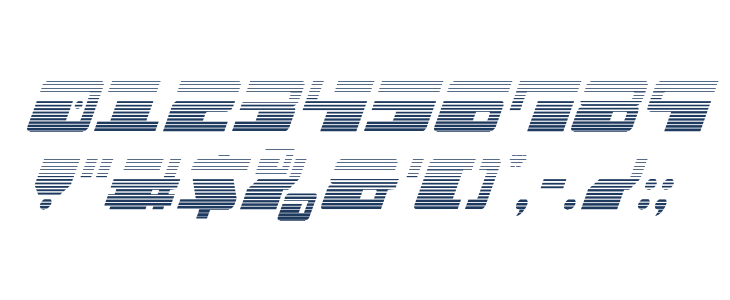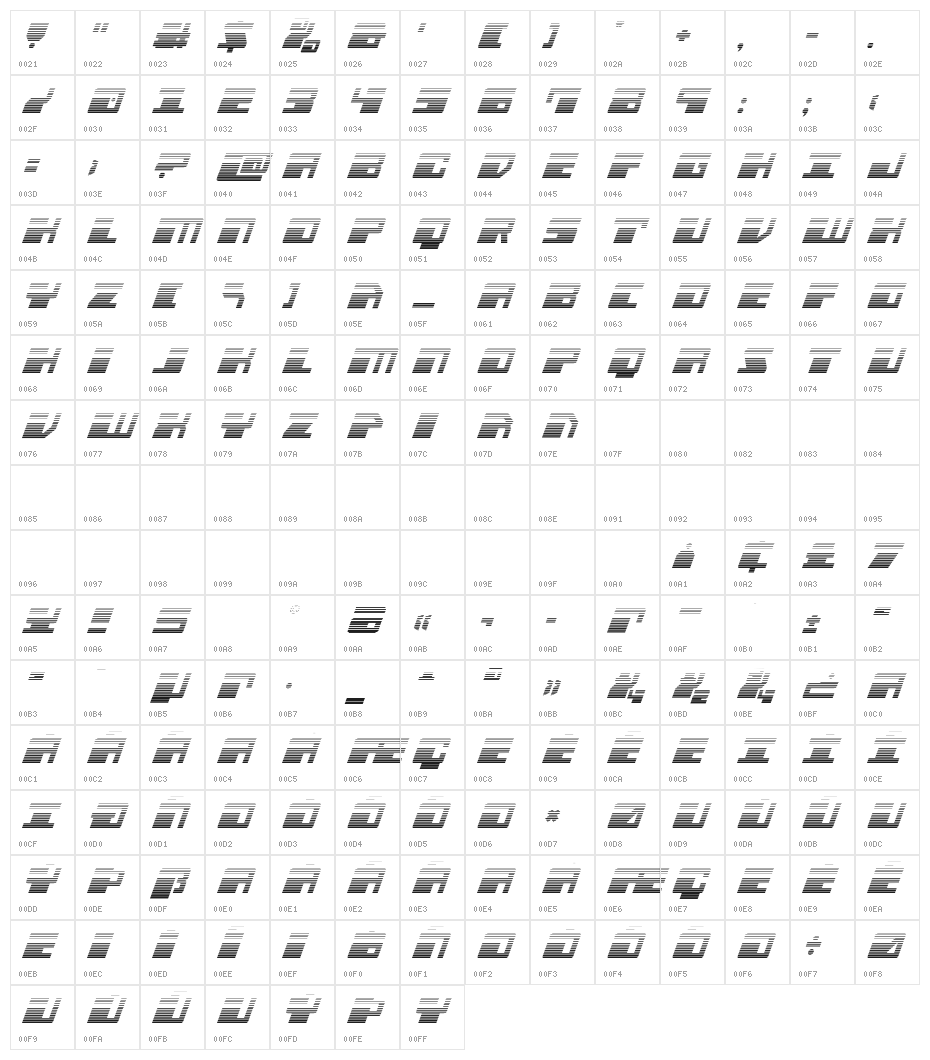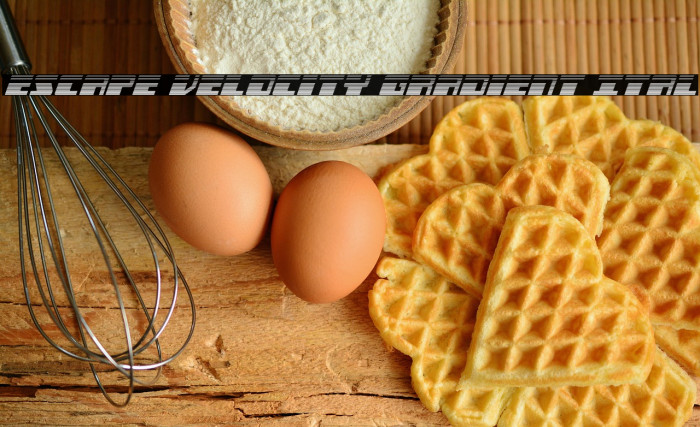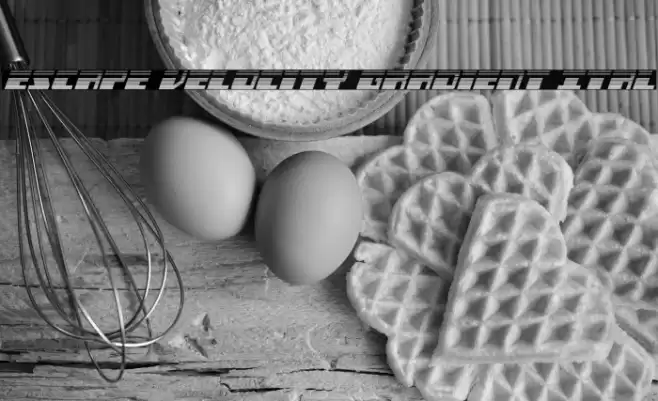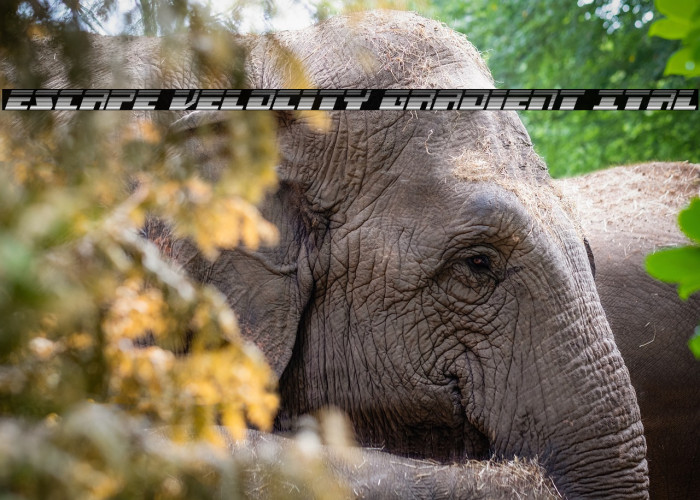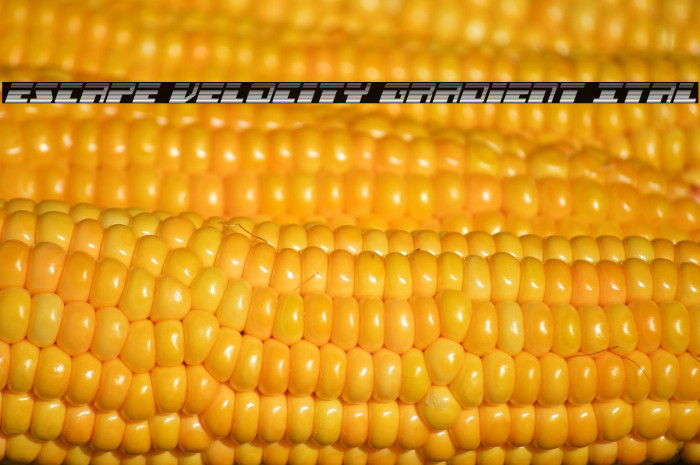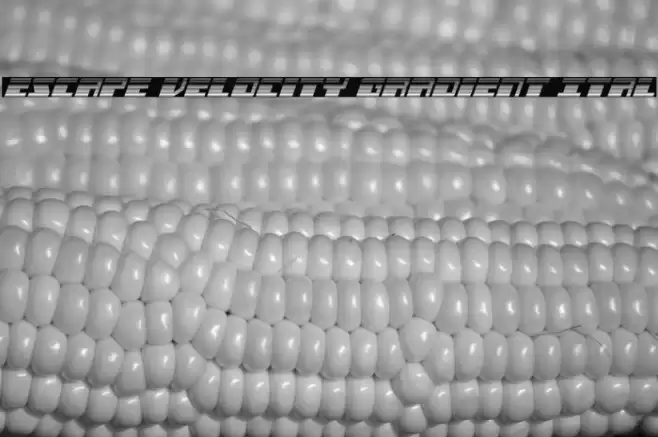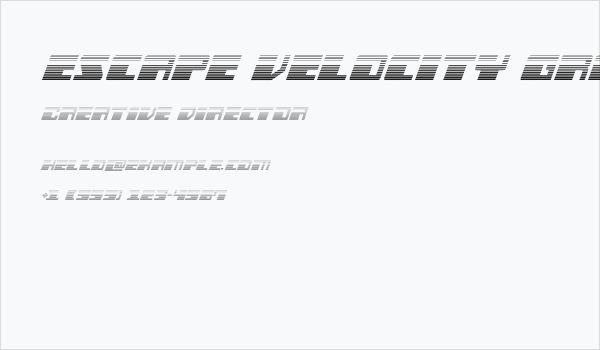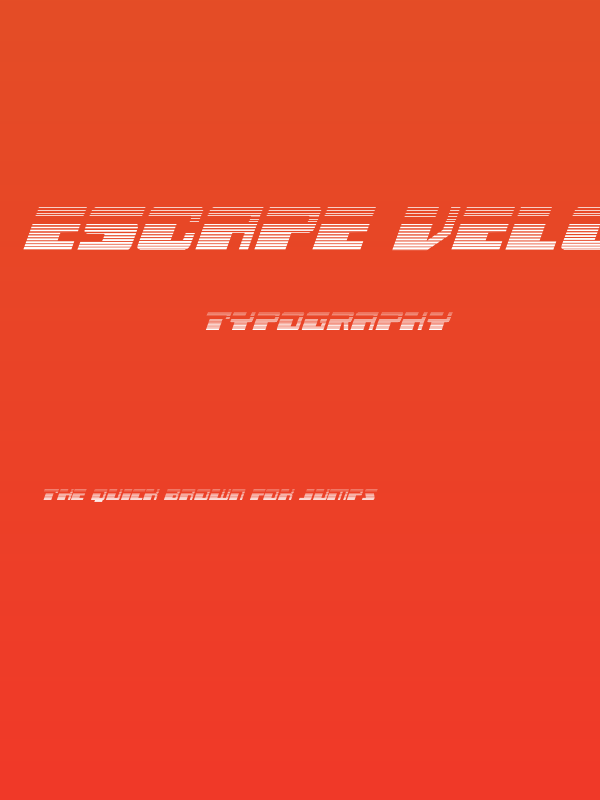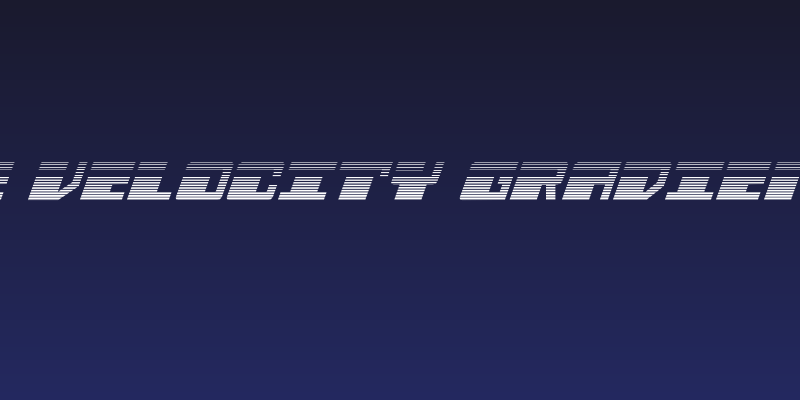
Escape Velocity Gradient Ital Font
Escape Velocity Gradient Ital Description
This font features a futuristic and dynamic design with a distinct gradient effect that gives it a sense of motion and speed. The characters are constructed with horizontal lines that create a striped pattern, enhancing the visual impact. The italicized slant adds to the forward-moving aesthetic, making it ideal for projects that require a modern and energetic feel. The uppercase and lowercase letters, along with numbers and special characters, maintain a consistent style, ensuring versatility across different applications. The font's unique appearance makes it suitable for creative and bold design projects.
| Proposed Projects | Ideal for sci-fi themed posters, video game titles, tech branding, and sports event promotions. |